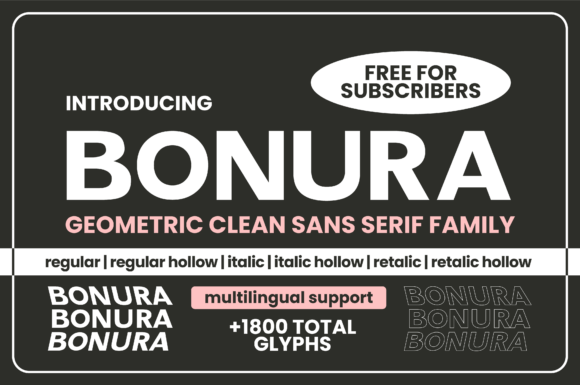
Discover the Bold Sophistication of Bonura Font: Elevate Your Designs with Versatility and Style
In the world of typography, a font can make or break a design. It’s the foundation upon which creativity is built, and the right choice can elevate a project from ordinary to extraordinary. If you’re a designer, crafter, or simply someone who appreciates the art of typography, then you’re in for a treat. Introducing the Bonura Font, a geometric sans serif typeface that embodies bold sophistication and versatility.
The Bonura Sans Serif Family: A Symphony of Styles
The Bonura Sans serif family is a six-style typeface that offers a range of creative possibilities. The family includes Italic, Reversed, Regular, Regular Hollow, Italic Hollow, and Retalic Hollow, each with its unique persona and characteristics. This extensive range of styles allows designers to experiment with different looks and feels, ensuring that their projects stand out in a crowded design landscape.
Exploring the Styles of Bonura Sans
- Regular: The foundation of the Bonura Sans family, the Regular style is a classic geometric sans serif font that exudes confidence and sophistication.
- Italic: Adding a touch of elegance and dynamism, the Italic style is perfect for emphasizing certain words or phrases, or for creating a sense of movement in a design.
- Reversed: For designs that require a bold and striking look, the Reversed style is the perfect choice. Its reversed color scheme creates a stunning visual effect that’s sure to grab attention.
- Regular Hollow: The Hollow style adds a touch of whimsy and playfulness to a design, making it ideal for projects that require a more lighthearted approach.
- Italic Hollow: Combining the elegance of the Italic style with the playfulness of the Hollow style, this variant is perfect for designs that require a sense of fun and sophistication.
- Retalic Hollow: A unique and eye-catching style, Retalic Hollow is perfect for designers who want to add a touch of drama and flair to their projects.
Endless Creative Possibilities with Bonura Sans
The Bonura Sans serif family is more than just a font – it’s a design solution. With its extensive range of styles, this geometric sans serif font can be used in a variety of creative projects, from packaging and logo design to branding, web design, and more. Whether you’re a seasoned designer or a crafty DIY enthusiast, Bonura Sans offers the versatility and flexibility you need to bring your ideas to life.
Packaging Design: Make a Lasting Impression
In the world of packaging design, typography plays a crucial role in capturing attention and communicating brand identity. Bonura Sans is the perfect choice for designers who want to create eye-catching packaging that stands out on store shelves. Its bold and sophisticated styles ensure that your brand gets noticed, while its versatility allows you to experiment with different looks and feels.
Logo Design: Create a Timeless Brand Icon
A well-designed logo is essential for any brand, and typography is a critical component of logo design. Bonura Sans offers a range of styles that can be used to create a unique and memorable logo that reflects your brand’s personality and values. Whether you’re a startup or an established brand, Bonura Sans is the perfect choice for creating a timeless brand icon.
Web Design: Elevate Your Online Presence
In the digital age, web design is more important than ever. A well-designed website can make or break a brand, and typography plays a critical role in creating a visually appealing and user-friendly interface. Bonura Sans is the perfect choice for web designers who want to create a stunning online presence that captures attention and communicates brand identity.
In conclusion, the Bonura Font is a game-changer for designers and crafters who want to elevate their designs with bold sophistication and versatility. With its extensive range of styles, this geometric sans serif font offers endless creative possibilities, from packaging and logo design to branding, web design, and more. Whether you’re a seasoned designer or a crafty DIY enthusiast, Bonura Sans is the perfect choice for bringing your ideas to life and making a lasting impression.